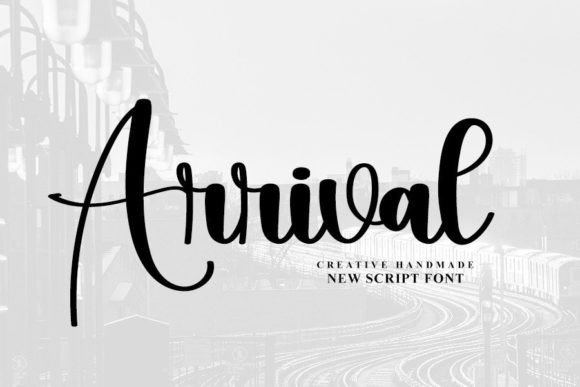
About Arrival Font
Arrival is a stylish handwritten font with a contemporary atmosphere and impeccable form, inspired by timeless classic calligraphy. Balanced and varied, this font was designed to enhance the beauty of your projects.